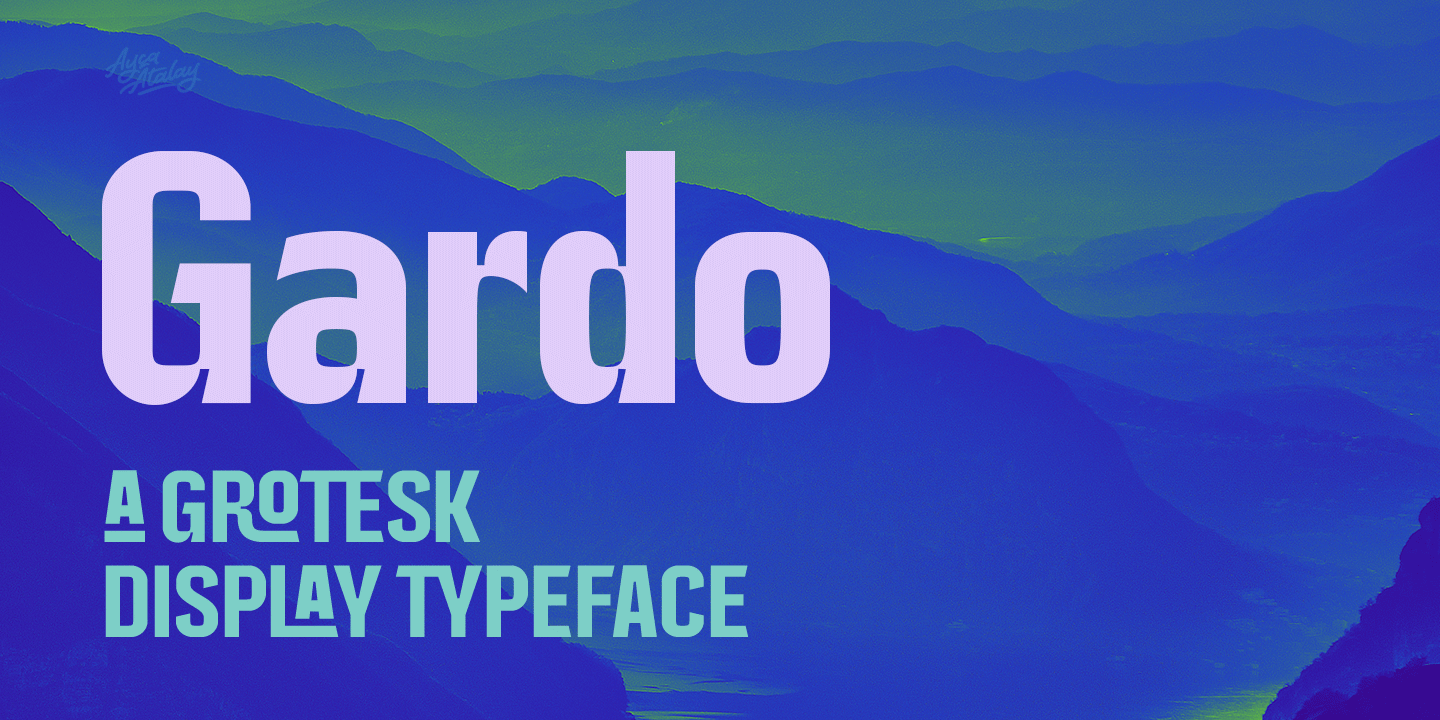
Gardo Grotesk Font excels in contemporary design applications including modern brand identity, tech industry branding, minimalist web typography, architectural presentations, progressive corporate materials, sleek product design, editorial publications, and cutting-edge advertising campaigns that require typography with clean precision and industrial sophistication.
What makes Gardo Grotesk Font exciting is its masterful fusion of classic grotesk tradition with contemporary design sensibilities, creating letterforms that feel both historically grounded and thoroughly modern. This versatile typeface features robust geometric characteristics with industrial precision and optimized proportions that instantly communicate reliability, innovation, and contemporary professionalism. The font's industrial personality and modern functionality make it perfect for brands seeking to establish technical credibility and communicate values of precision, efficiency, and forward-thinking design to professional audiences.
Gardo Grotesk Font family encompasses a comprehensive range of weights and styles designed for complete industrial communication. The family typically includes thin, light, regular, medium, bold, and black weights, each available in upright and italic versions, plus condensed variants with extensive multilingual support and advanced OpenType features for professional applications.
Industrial designers consistently select Gardo Grotesk Font Free Download for projects requiring typography that embodies technical precision and contemporary functionality. This robust typeface adapts seamlessly across industrial applications, from digital technology platforms to large-scale architectural signage, delivering consistent brand messaging with unmistakable industrial authority and modern appeal. The font's precisely engineered letterforms ensure optimal performance in both technical documentation and creative applications while maintaining the clean presence that contemporary brands demand. Leading engineering firms worldwide trust this industrial typeface to communicate brand values of precision, reliability, and technical excellence. Build your brand's industrial foundation with Gardo Grotesk Font and create compelling visual communications that resonate with audiences who appreciate technical precision, industrial design, and the clean efficiency of contemporary grotesk typography.